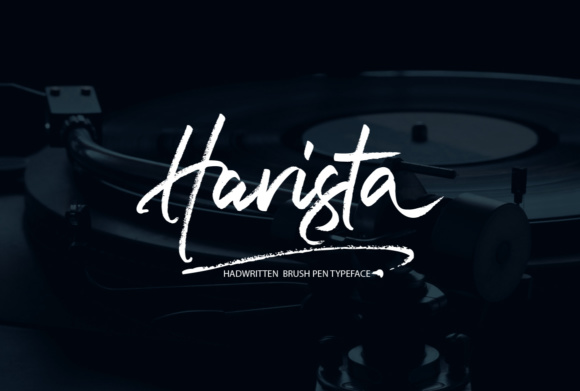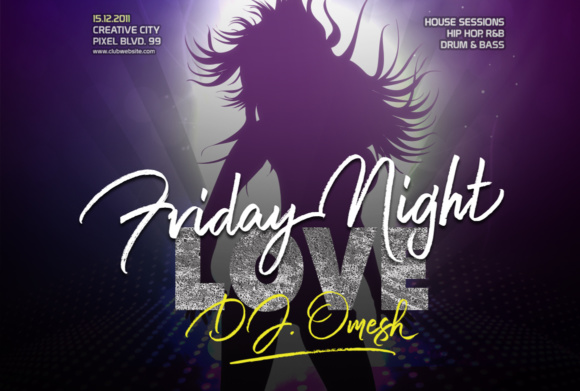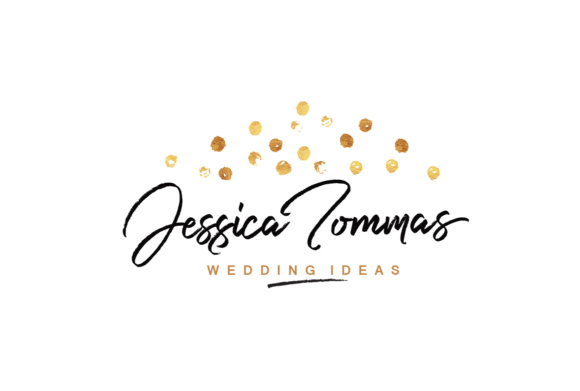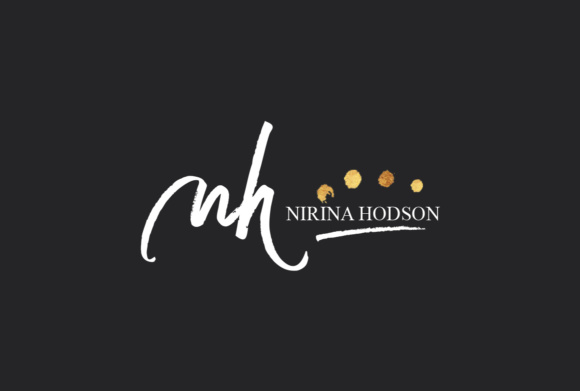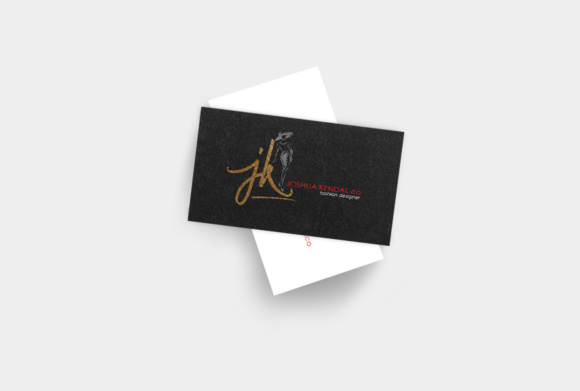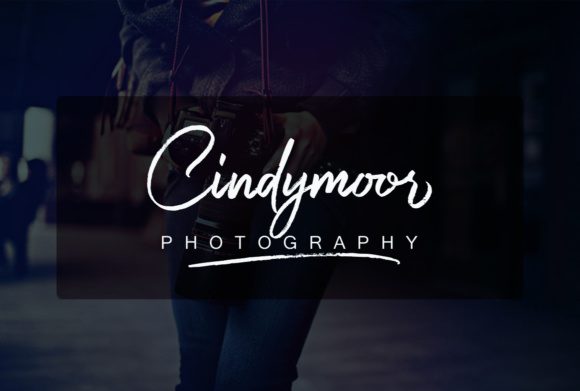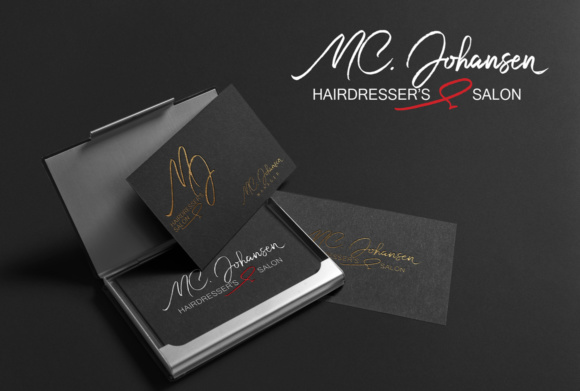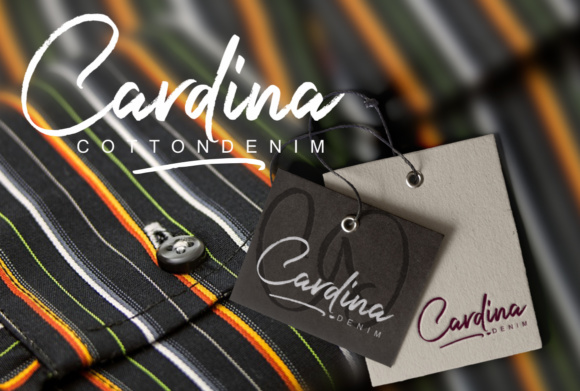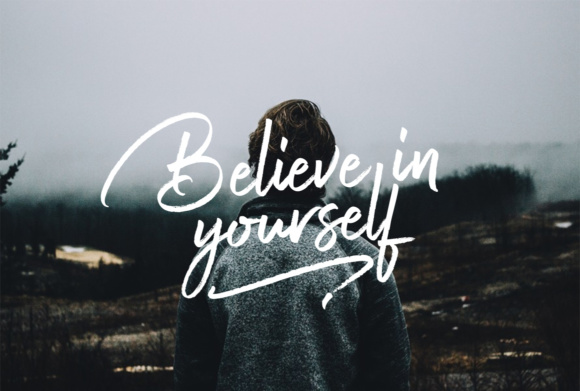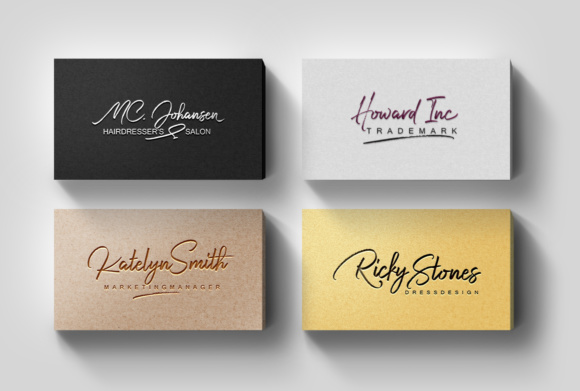
Harista Script Font
About Harista Script Font
Harista Script is a handwritten font which was made with a brush pen. It has a signature style and is perfect for branding projects, invitations, logos and much more!